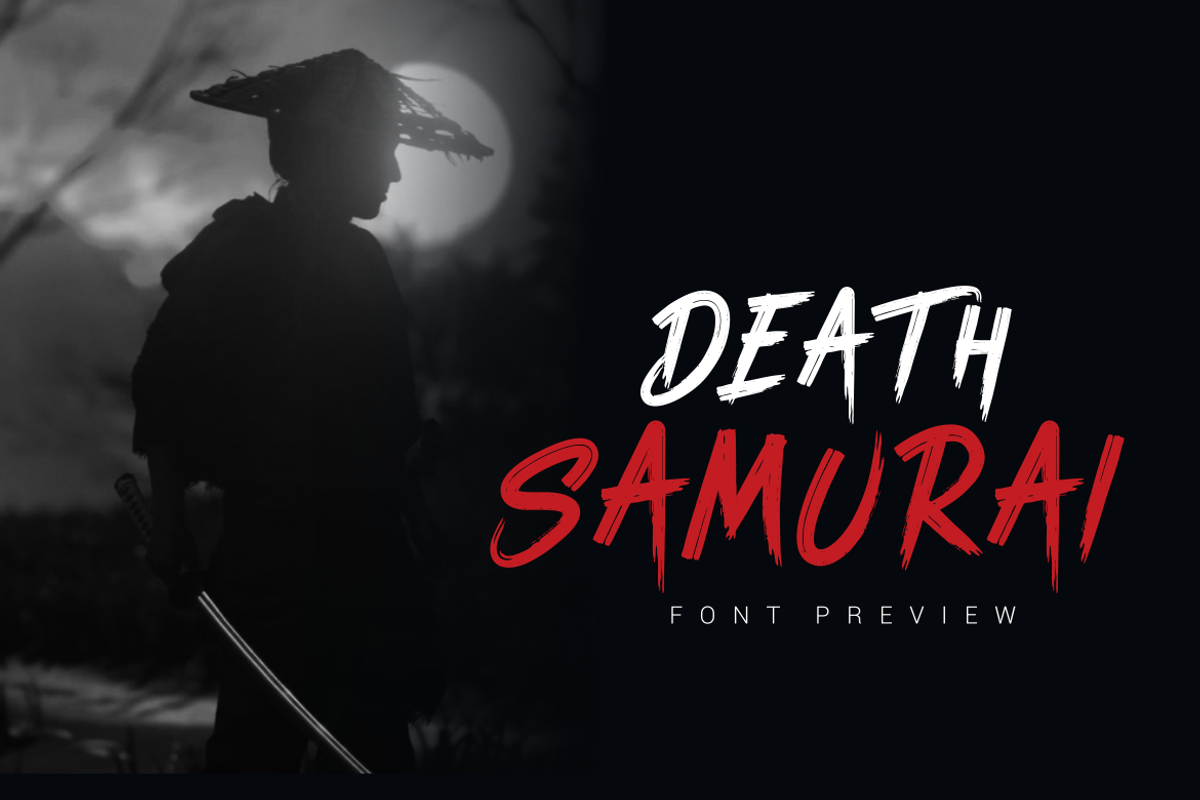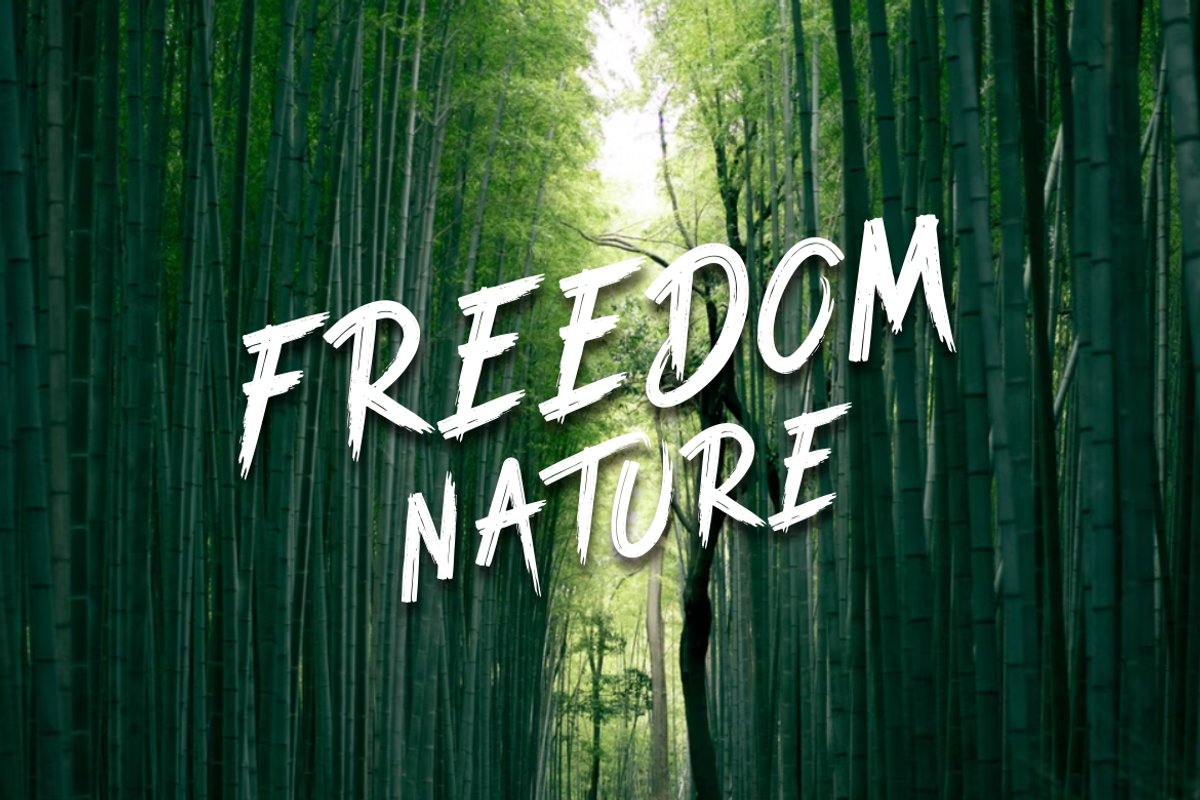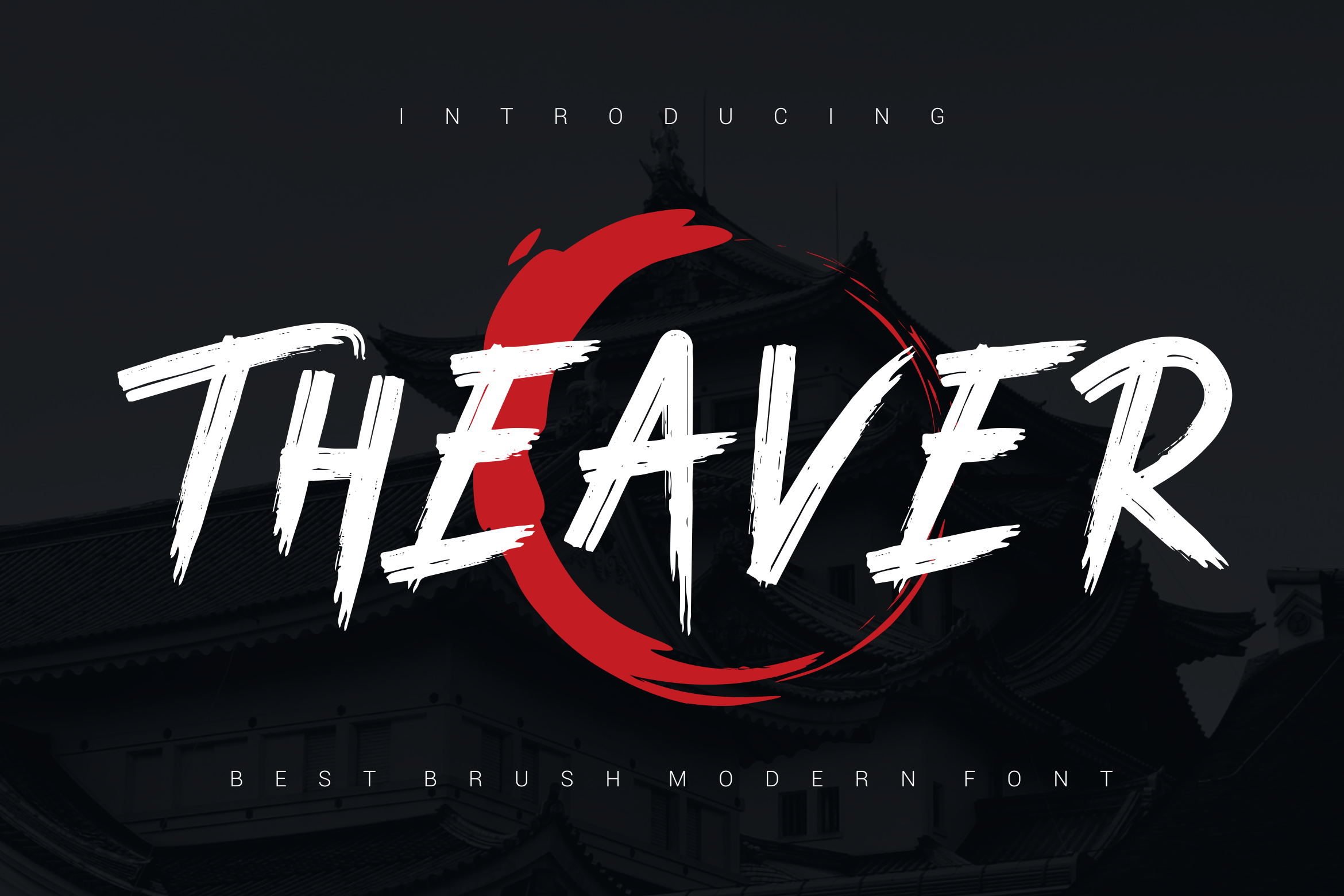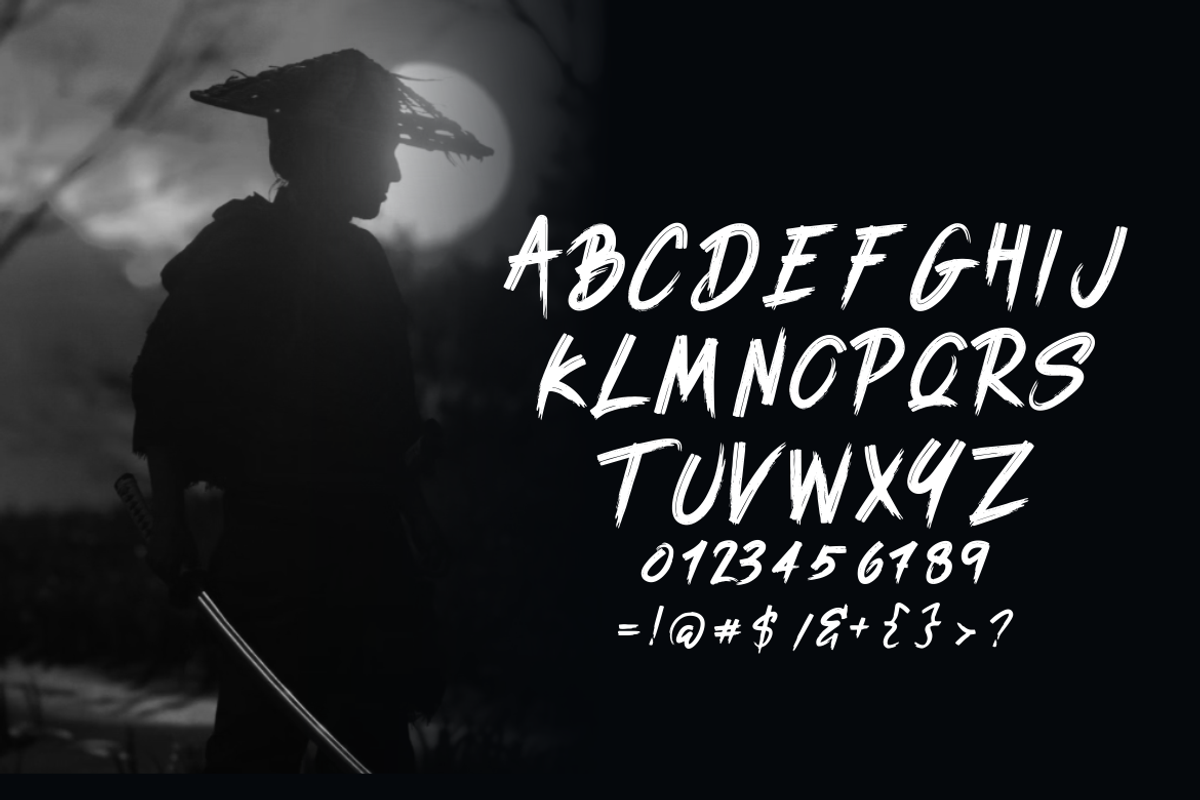
Theaver Font
Introducing our new product Theaver Font - Modern Font
Theaver Font - Modern Font is a bold and authentic display font. The font is suitable for any branding project like logo, esport, and many more. outstanding in a wide range of contexts.